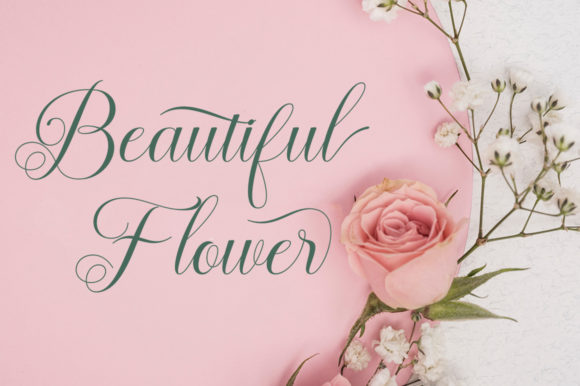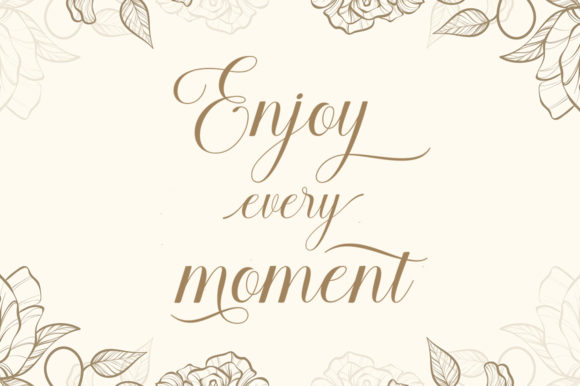
Shimphony Font
db-ku.com - Script & Handwritten -- Shimphony is a magical script font carefully created with a touch of elegance. This is a beautiful combination of timeless elegance and authentic calligraphy. It features an incredibly classic style, while still keeping a friendly feel. Fall in love with its authentic feel and use it to create gorgeous wedding invitations, beautiful stationary art, eye-catching social media posts, and cute greeting cards.